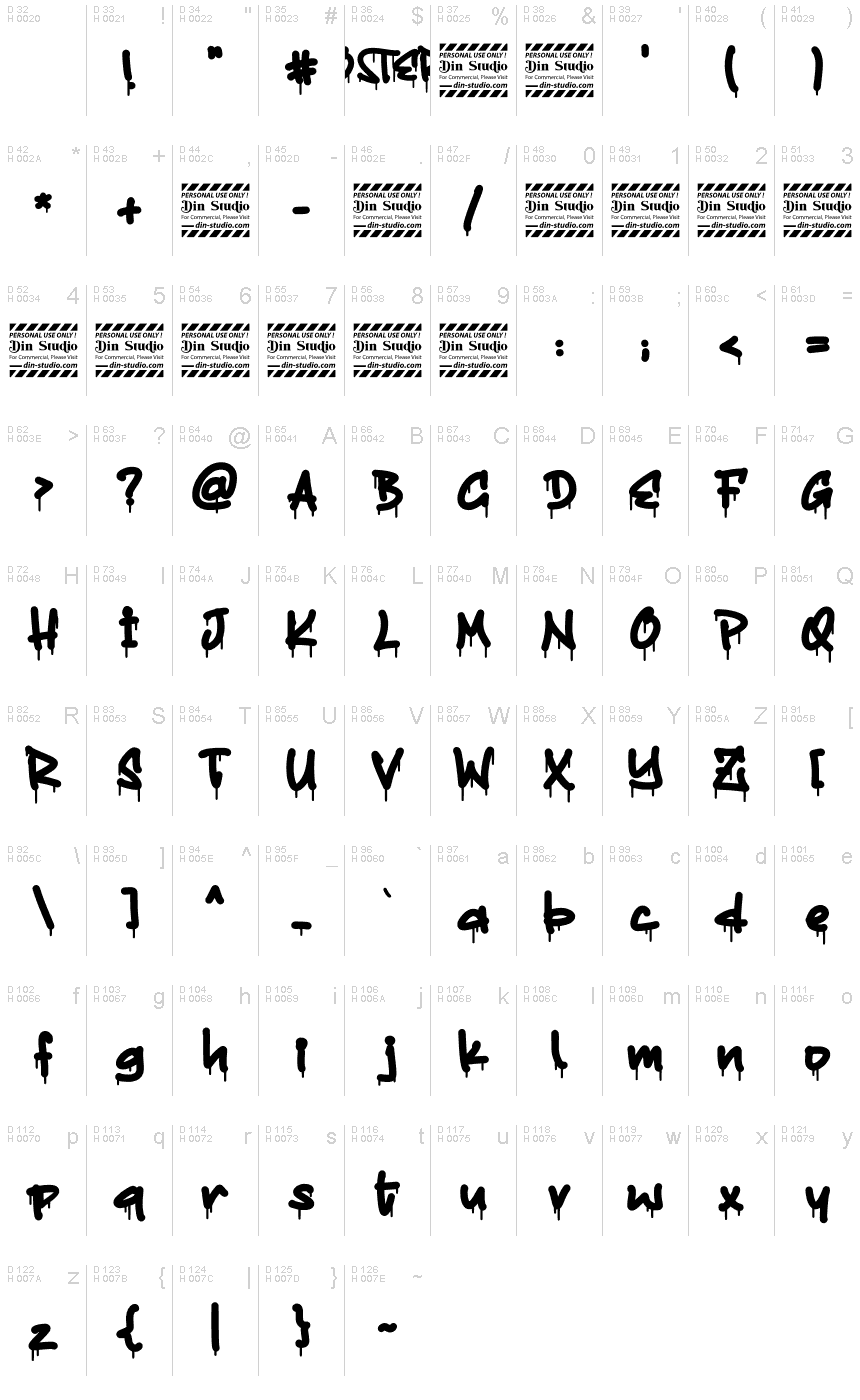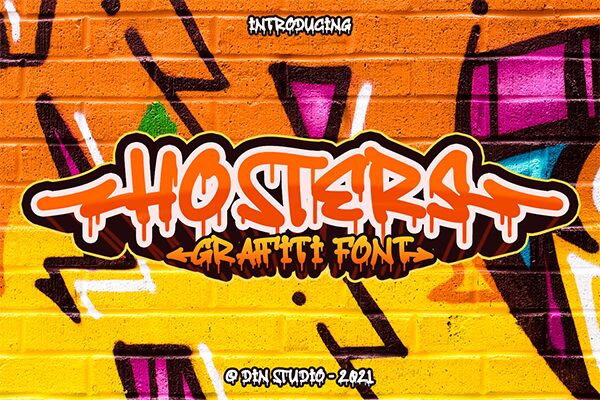
Hosters by Din Studio is not just a font; it's a stroke of street art genius that leaps off the page and demands attention. Perfectly capturing the essence of urban creativity, this graffiti bubble font infuses your project with an authenticity that can only come from the most vibrant corners of city life. With Hosters, you're not just selecting a typeface, you're embracing a culture.
Bold and dynamic, Hosters is designed to make an impact. Whether it's bringing to life the edgy charm of a logo or adding character to your branding efforts, this font has the versatility to adapt across various mediums. From eye-catching headlines to statement t-shirts and posters that resonate with energy, Hosters is your go-to for designs that are meant to stand out in today’s fast-paced visual landscape. Dive into the world where type meets art and let your creative projects soar with Hosters Graffiti Font.